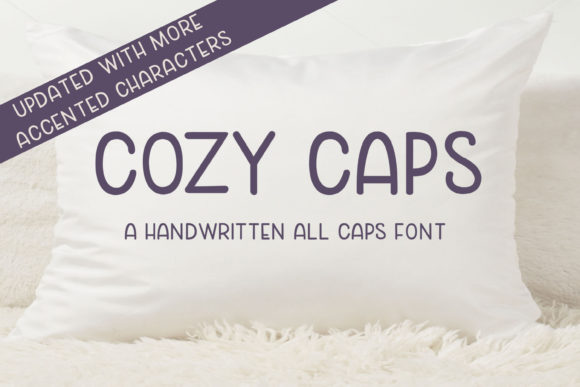
Introducing Cozy Caps Font, a casual sans serif typeface created by stacysdigitaldesigns. Get ready to infuse your designs with an authentic vibe that will captivate your audience. With Cozy Caps, you can effortlessly achieve a down-to-earth feel that resonates with your target market.
This font is the perfect choice for those seeking a relaxed yet stylish look. Its clean lines and gentle curves make it incredibly versatile, allowing you to use it in a wide range of projects. Whether you're designing a logo, crafting a website, or creating eye-catching social media posts, Cozy Caps has got you covered.
Immerse yourself in the warmth and coziness that this font exudes. Its subtle simplicity and inviting nature will evoke a sense of comfort and familiarity, instantly drawing your audience in. Imagine the impact this font will have on your branding, making your customers feel right at home.
Cozy Caps Font is not just any ordinary typeface – it's a powerful tool that can evoke emotions and tell stories. Its friendly and approachable appearance will create a personal connection with your audience, leaving a lasting impression. Let your designs speak volumes and establish a genuine connection with your customers.
Embrace the versatility of Cozy Caps Font and watch your designs come to life. Whether you're aiming for a rustic farmhouse aesthetic, a modern minimalist look, or a cozy vintage vibe, this font adapts effortlessly to suit your unique style. Elevate your designs with this captivating typeface that adds depth and character.
Experience the joy of creating with Cozy Caps. It's not just about designing; it's about bringing your vision to life with a touch of warmth and authenticity. Stand out from the crowd and make a statement that resonates with your audience on a deeper level.